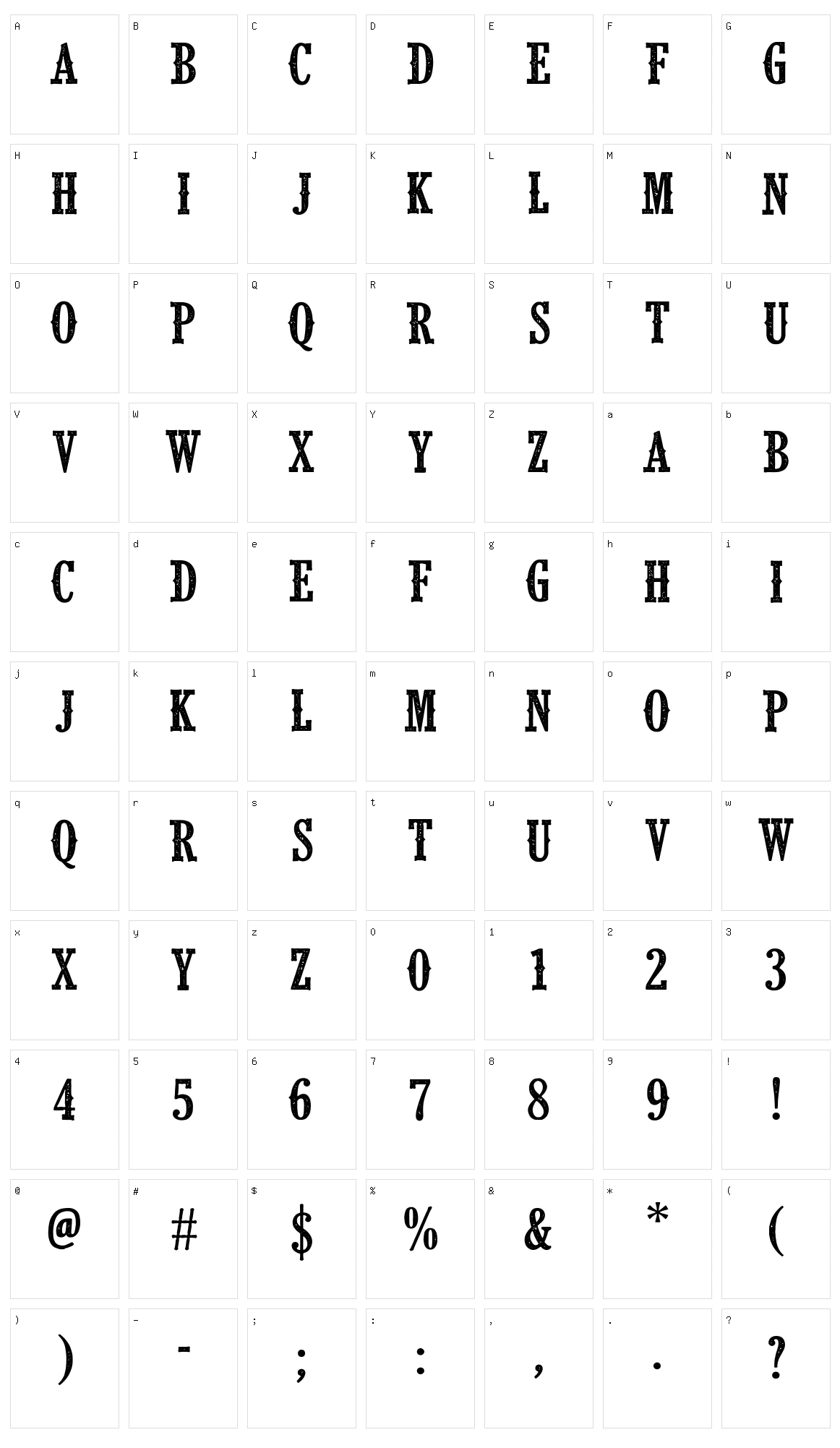
The free font CF Klondike is carefully designed by Cloutierfontes, showcasing a thoughtful balance of creativity and usability and falls under the Western font style. When you download the ZIP file, it contains only 136.91 KB of font files, making it lightweight and quick to download. Please review the license details below to understand permitted usage and distribution rights. If license information is not available, we recommend using this font for personal projects only or contacting the author directly for commercial usage permissions.